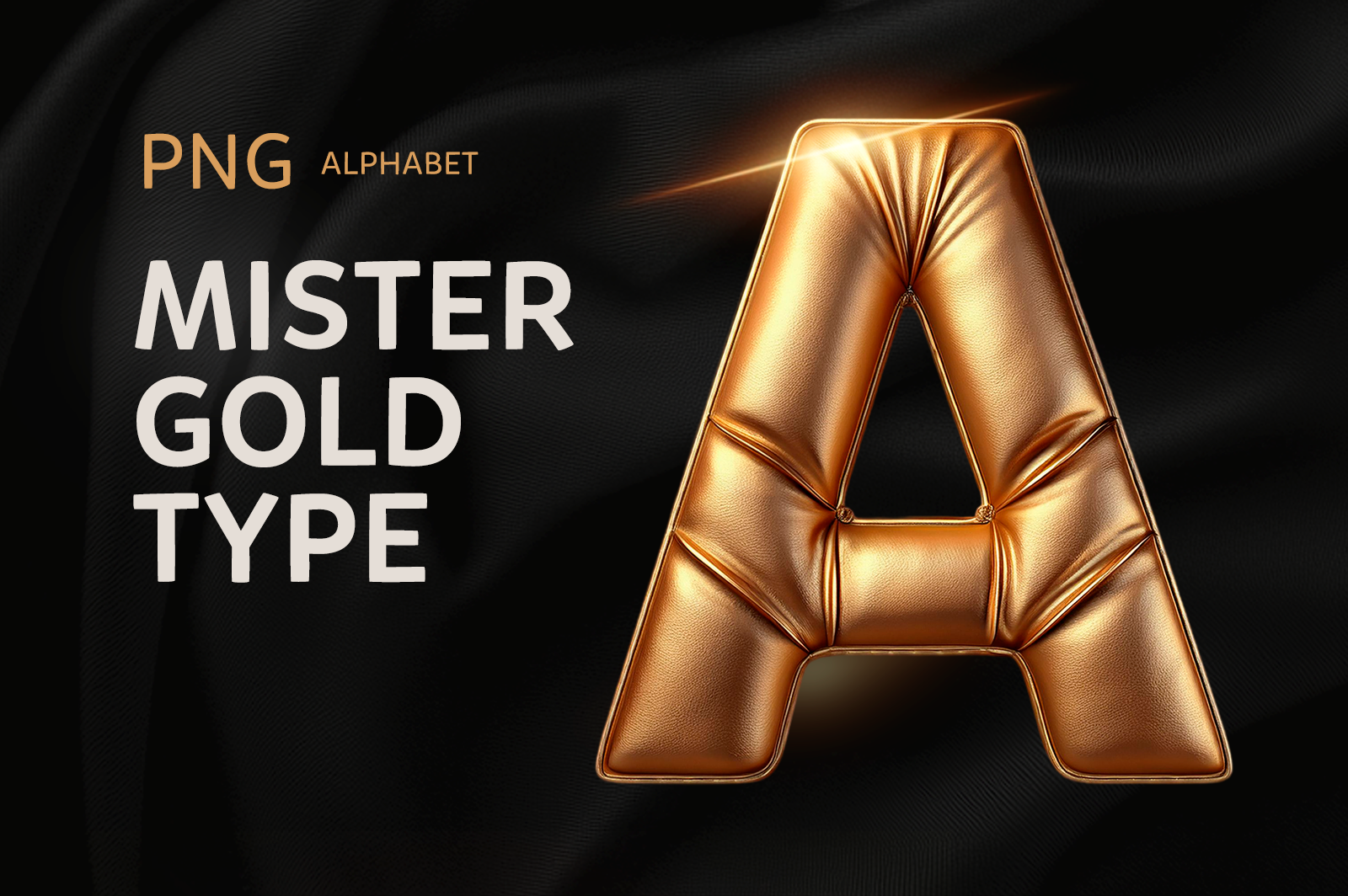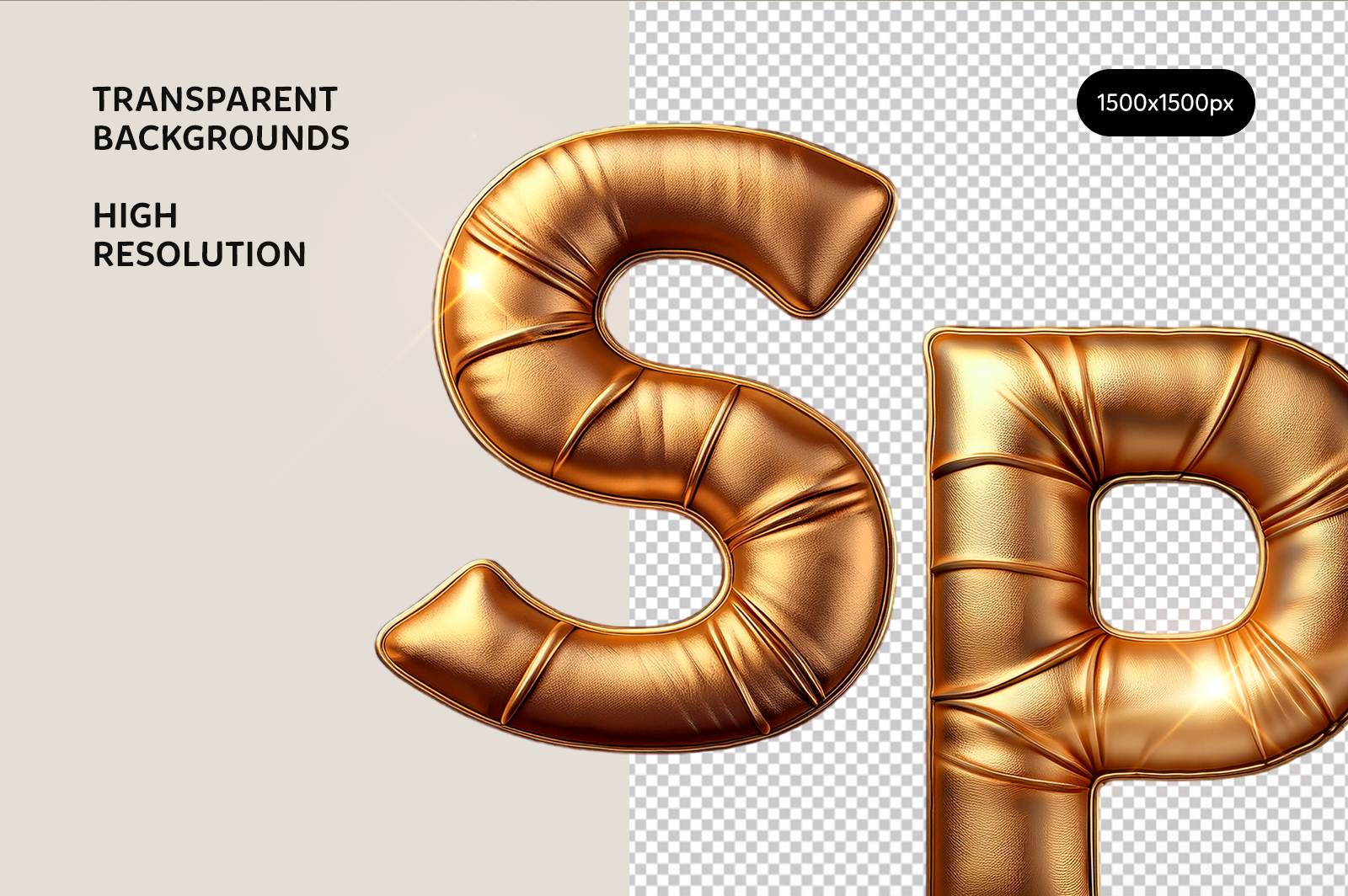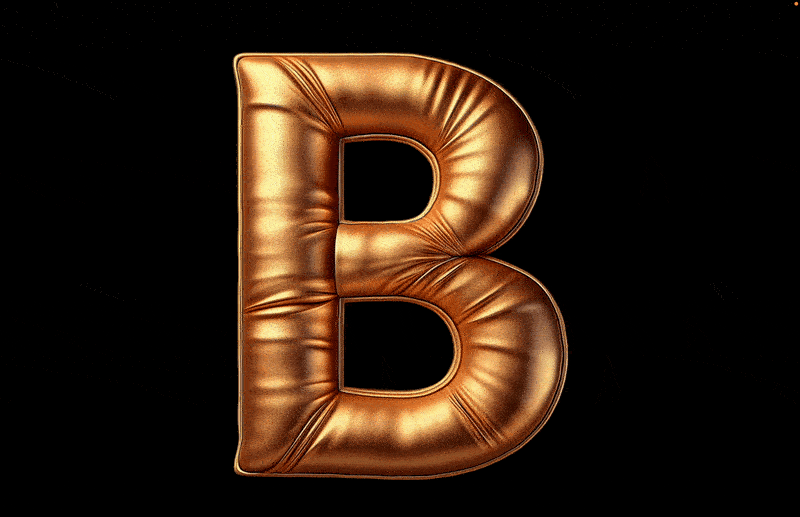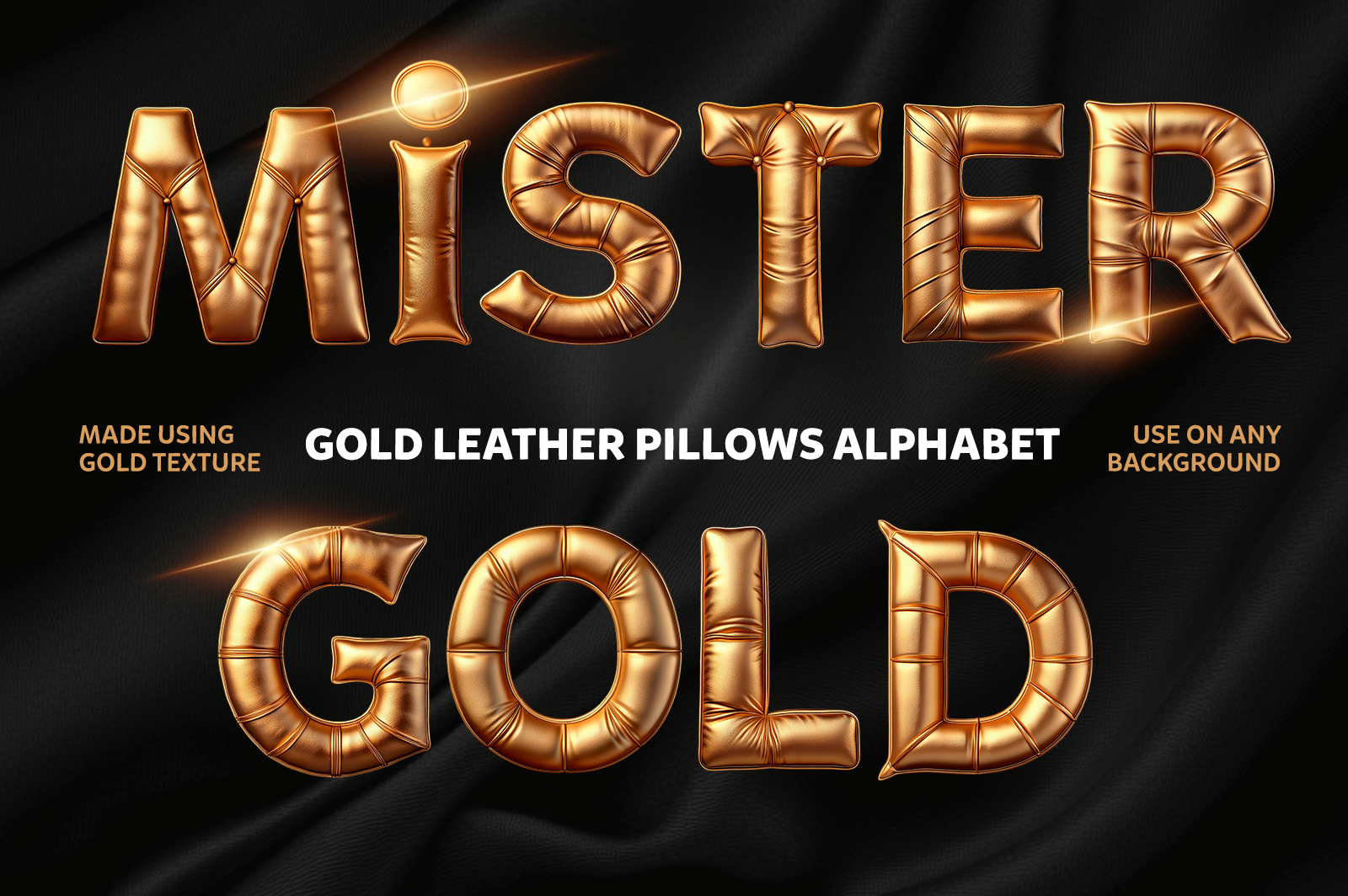
Mister Gold Font: Geometric Gold Pillow Leather Alphabet
An entire alphabet of custom gold leather letters.
THIS IS NOT A FONT. A font would not allow the customization and vibrant color included here. The result is a unique, super high resolution and highly detailed alphabet.